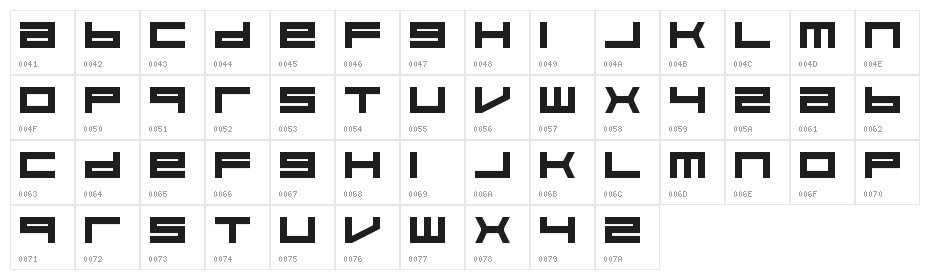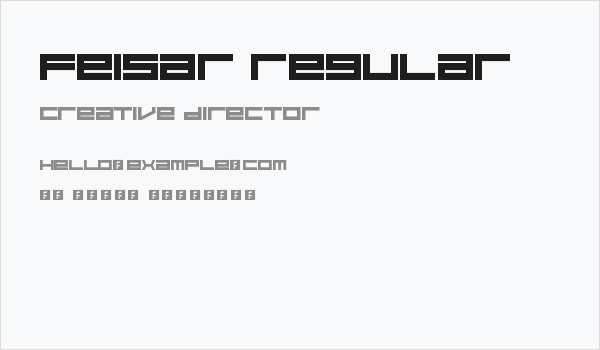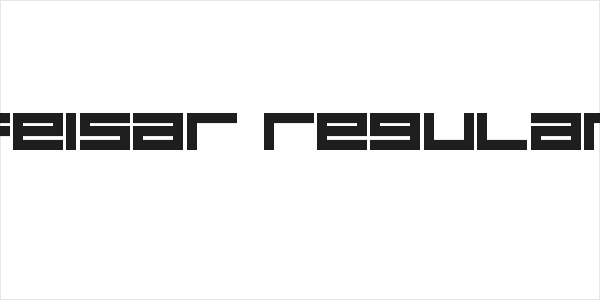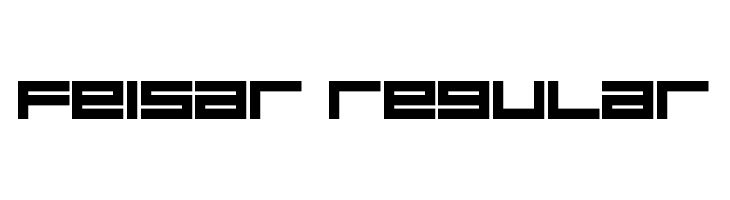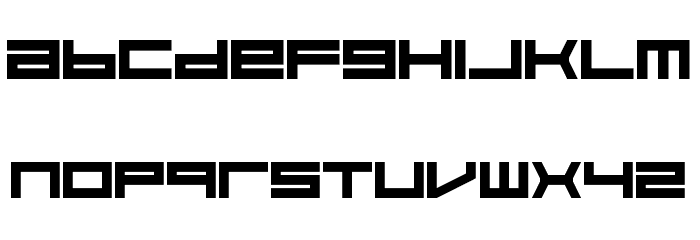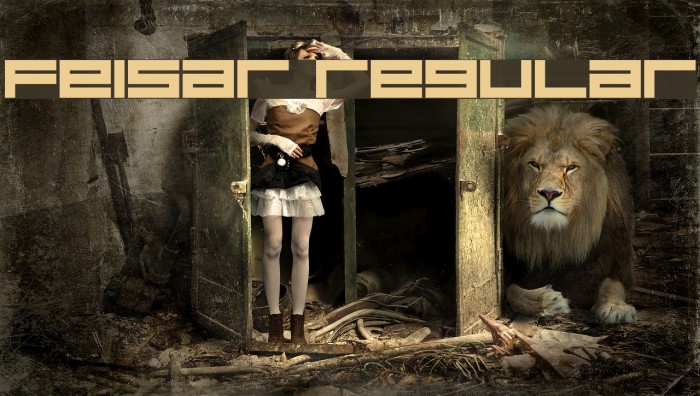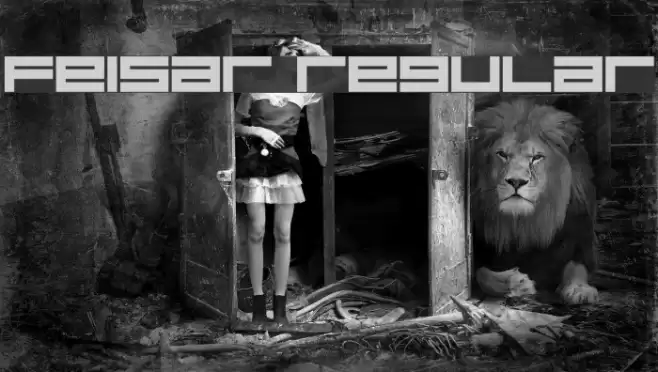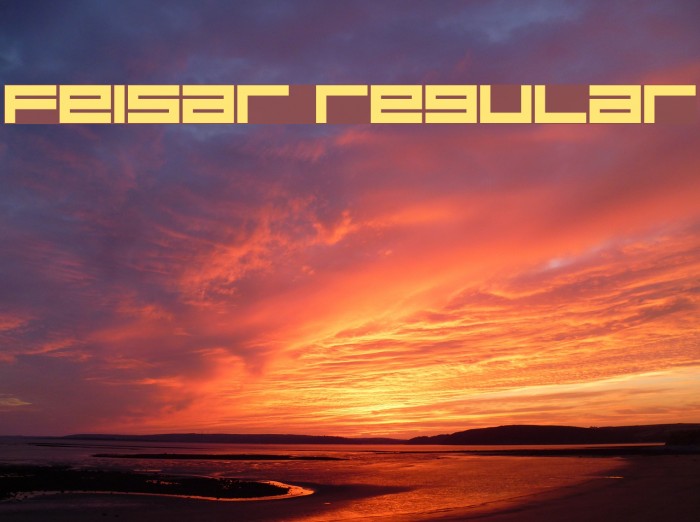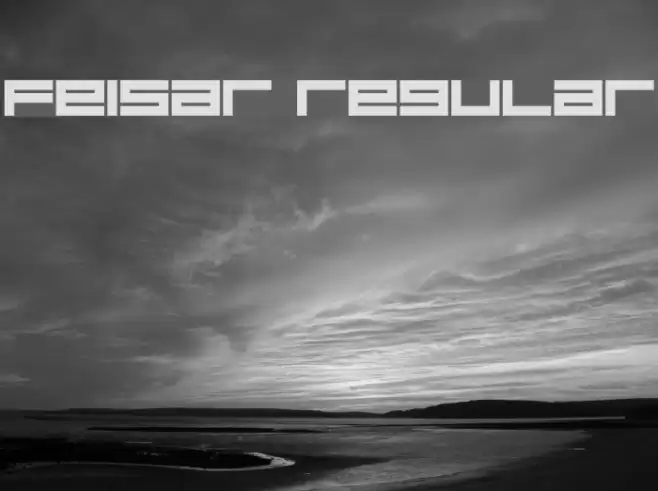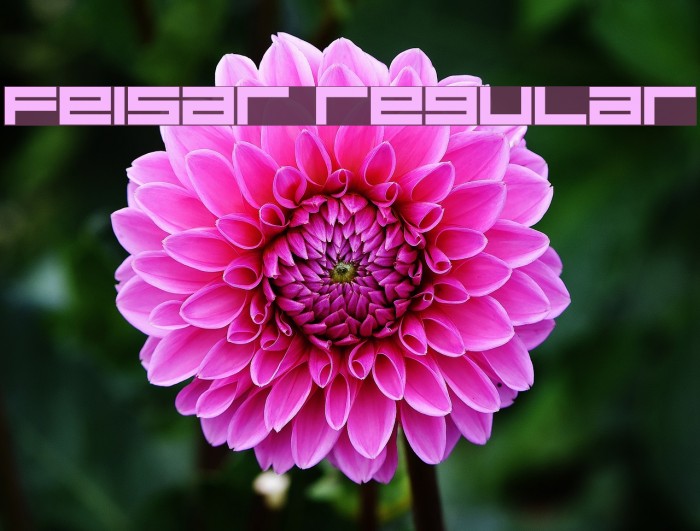
Feisar Regular Font
Feisar Regular Description
This font exhibits a futuristic and geometric design, characterized by its bold, angular shapes and clean lines. The letters are constructed with a blocky appearance, giving it a strong and assertive presence. The uniformity in the height of the characters, combined with the sharp edges, creates a modern and sleek aesthetic. The font is highly legible, even at smaller sizes, due to its clear and distinct letterforms. It is particularly well-suited for digital and technology-related projects, where a contemporary and cutting-edge look is desired. The consistent stroke width throughout the characters contributes to its cohesive and structured appearance.
| Proposed Projects | Ideal for technology branding, video game titles, sci-fi movie posters, and digital interfaces. |